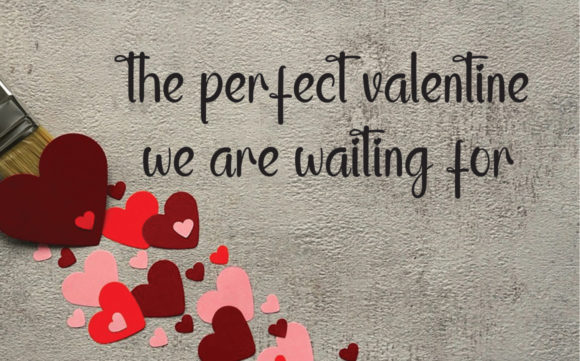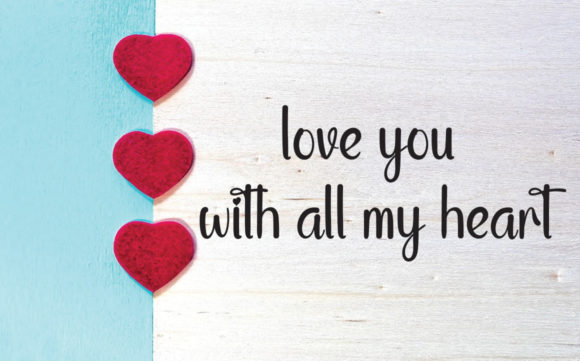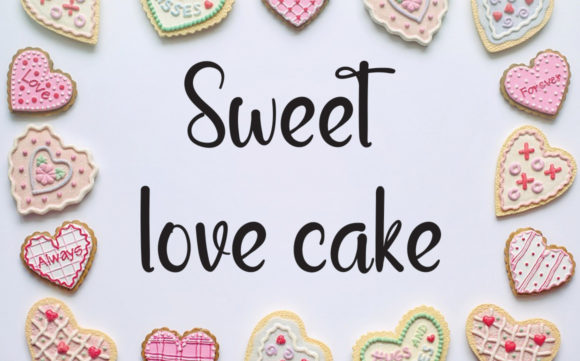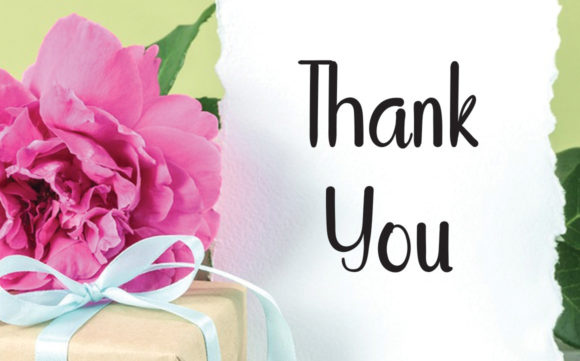
Love at First Sight: Discovering the Magic of Amora Valentina Font
As a designer, have you ever been swept off your feet by a beautiful font that instantly sparks inspiration? For me, that moment happened when I stumbled upon the enchanting Amora Valentina Font. Its delicate flow and sweet, romantic feel made me envision a whimsical world of love and wonder.
This lovely handwritten font is a treasure trove of creative possibilities, perfect for crafting wall displays, wedding invitations, social media post logos, and any project that requires impressive typography. What sets Amora Valentina Font apart is its versatility and charm, making it an invaluable addition to any designer’s toolkit.
- Font Family: Amora Valentina
- Unique Characteristics: Elegant script font with a touch of romance, perfect for wedding invitations, love letters, and other special occasions
Amora Valentina Font Review
I recently had the chance to work with the Amora Valentina font, and I must say it’s a beautiful addition to any design project. ✨ The elegant, cursive script is perfect for creating a romantic or vintage atmosphere, making it ideal for wedding invitations, greeting cards, or any other design that requires a touch of whimsy.
The font is highly customizable, with a range of weights and styles available to suit your design needs. ✨ It’s also relatively easy to read, even at smaller font sizes, which is a must-have for any font that’s intended for body text.
However, I did encounter a few limitations. ⚠️ Firstly, the font can be a bit too ornate for some designs, which can make it difficult to read in certain contexts. Additionally, the font’s ligatures can be a bit tricky to work with, especially when using certain software or font editing tools.
Overall, I would highly recommend the Amora Valentina font for any design project that requires a touch of elegance and sophistication. While it may not be the best choice for every design, it’s a great option for those looking to add a little romance to their work.
- Use Amora Valentina for headings and titles to add a touch of elegance to your design.
- Pair Amora Valentina with a clean, sans-serif font for body text to create a nice contrast.
- Experiment with different font weights and styles to find the perfect combination for your design.
Tips for Getting the Most Out of Amora Valentina Font
For best results, use Amora Valentina Font in conjunction with a warm color scheme and elegant design elements.
Experiment with different font sizes and styles to create visual interest and hierarchy in your design.
Amora Valentina Font is ideal for:
- Designing a elegant and sophisticated website or blog
Alternatives to Amora Valentina Font
Great Vibes Font is a beautiful, modern script font perfect for creating a romantic and elegant look. It is ideal for wedding invitations, love letters, and other romantic projects. Great Vibes Font is similar to Amora Valentina Font in its flowing and cursive nature, but it has a more casual and relaxed feel to it.
Carolyna Pro Font is a sophisticated and elegant script font that is perfect for creating a luxurious and high-end look. It is ideal for branding, advertising, and other professional projects. Carolyna Pro Font is similar to Amora Valentina Font in its refined and polished nature, but it has a more formal and structured feel to it.
Alex Brush Font is a beautiful and elegant script font that is perfect for creating a romantic and whimsical look. It is ideal for wedding invitations, greeting cards, and other creative projects. Alex Brush Font is similar to Amora Valentina Font in its flowing and cursive nature, but it has a more playful and artistic feel to it.
Dancing Script Font is a lively and energetic script font that is perfect for creating a fun and playful look. It is ideal for branding, advertising, and other creative projects. Dancing Script Font is similar to Amora Valentina Font in its flowing and cursive nature, but it has a more dynamic and lively feel to it.